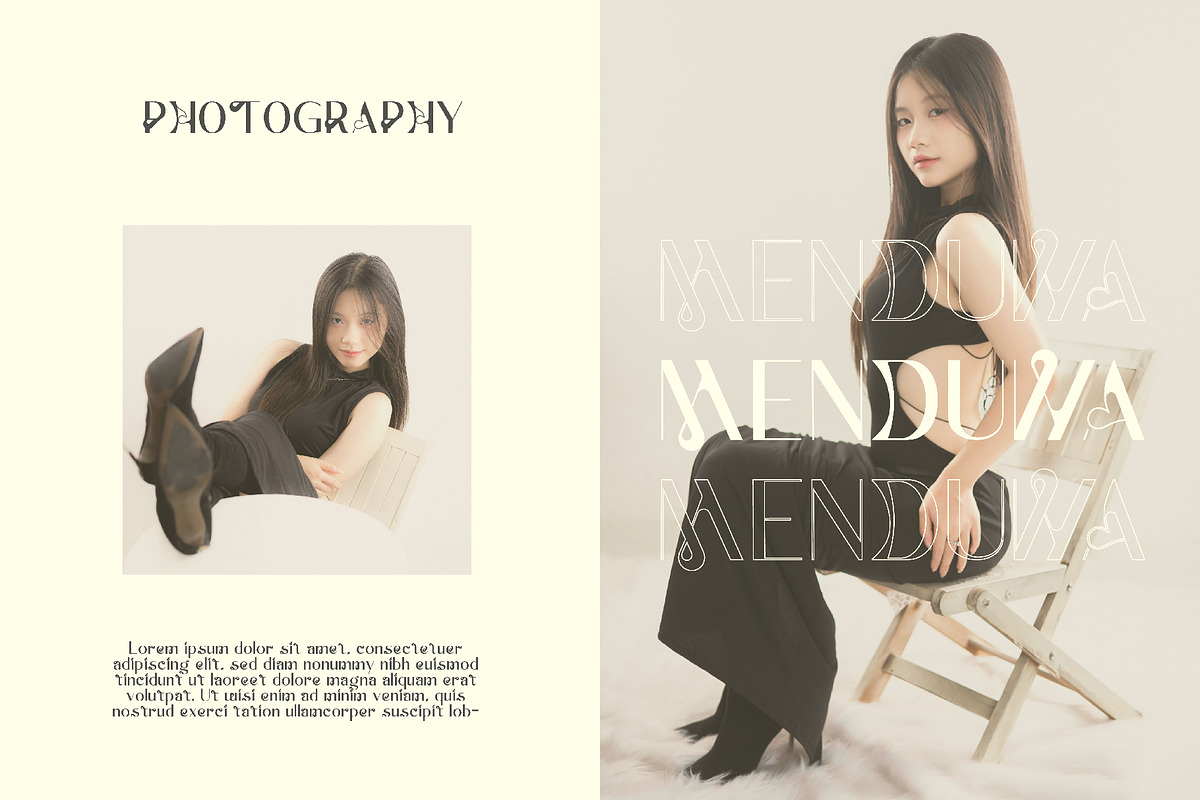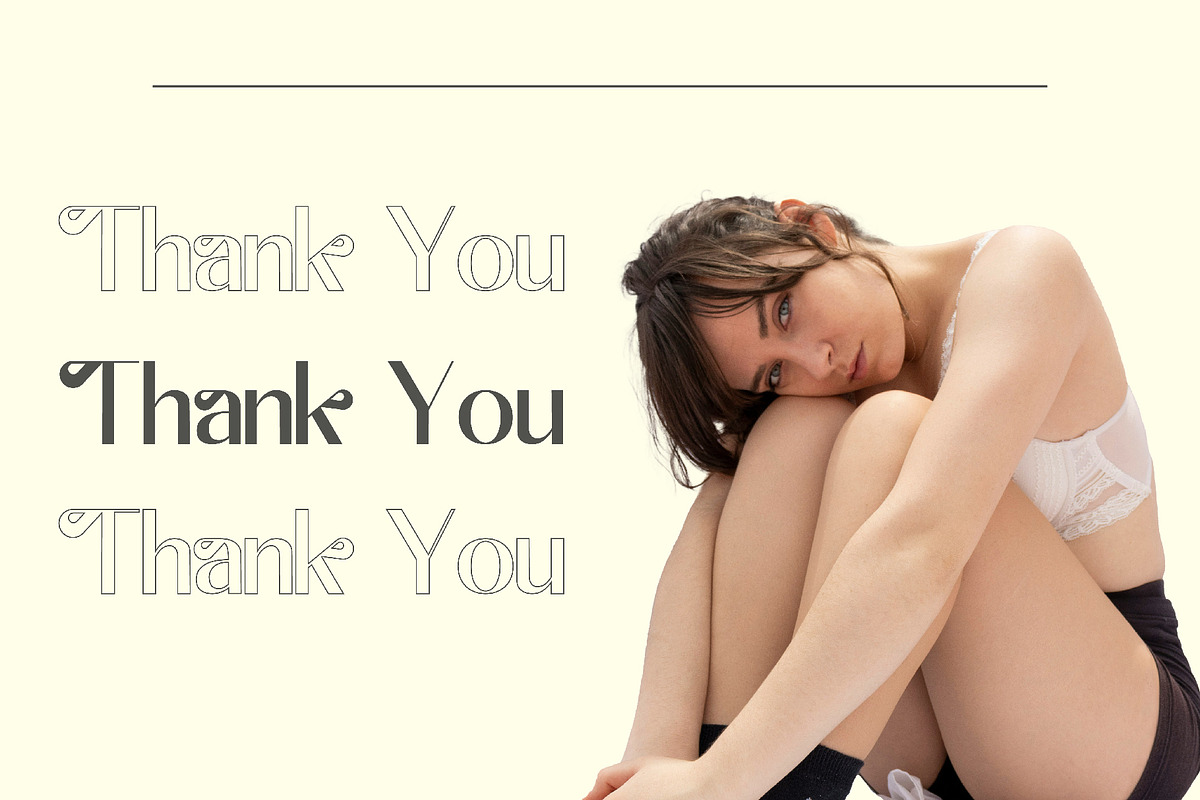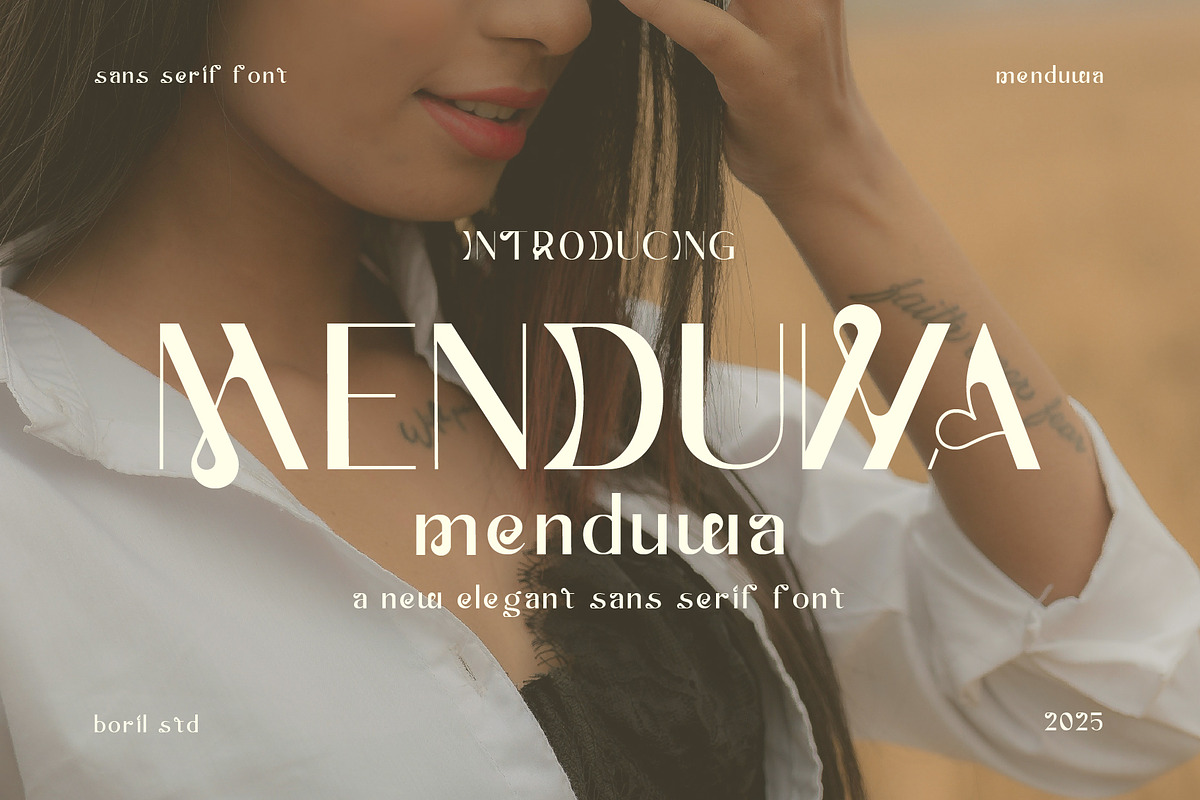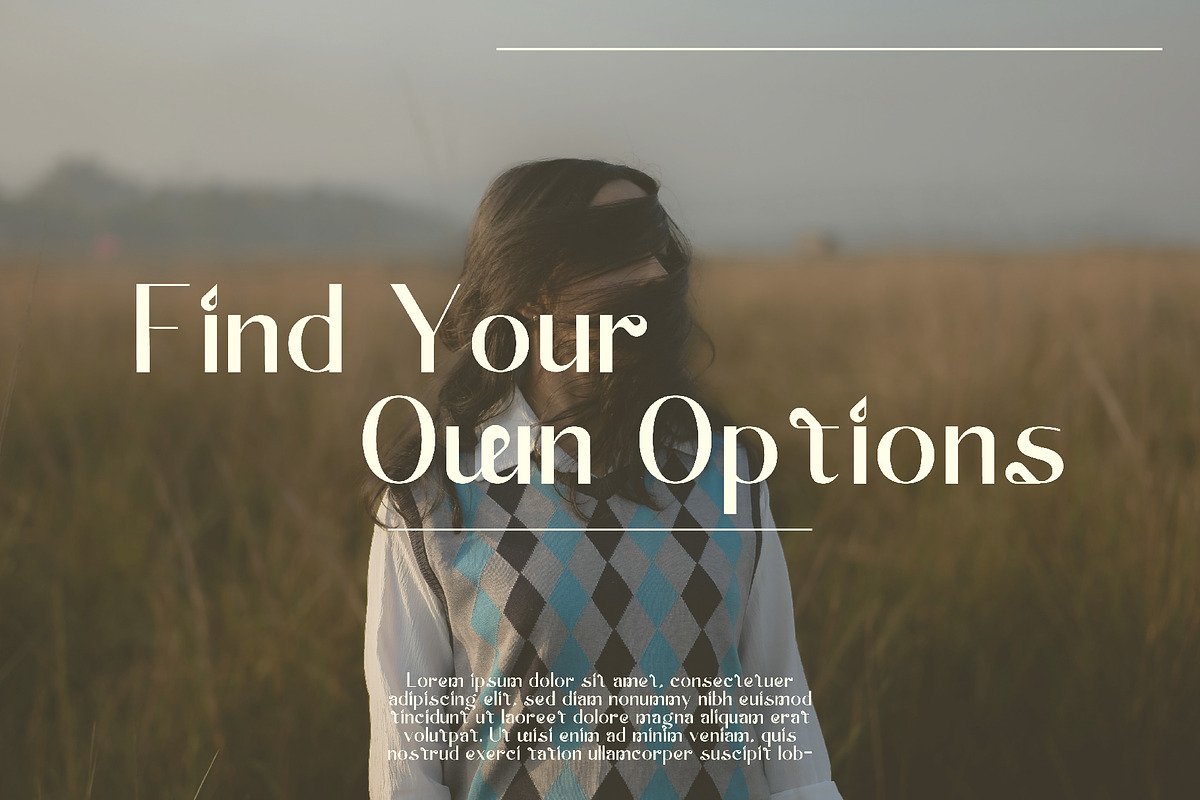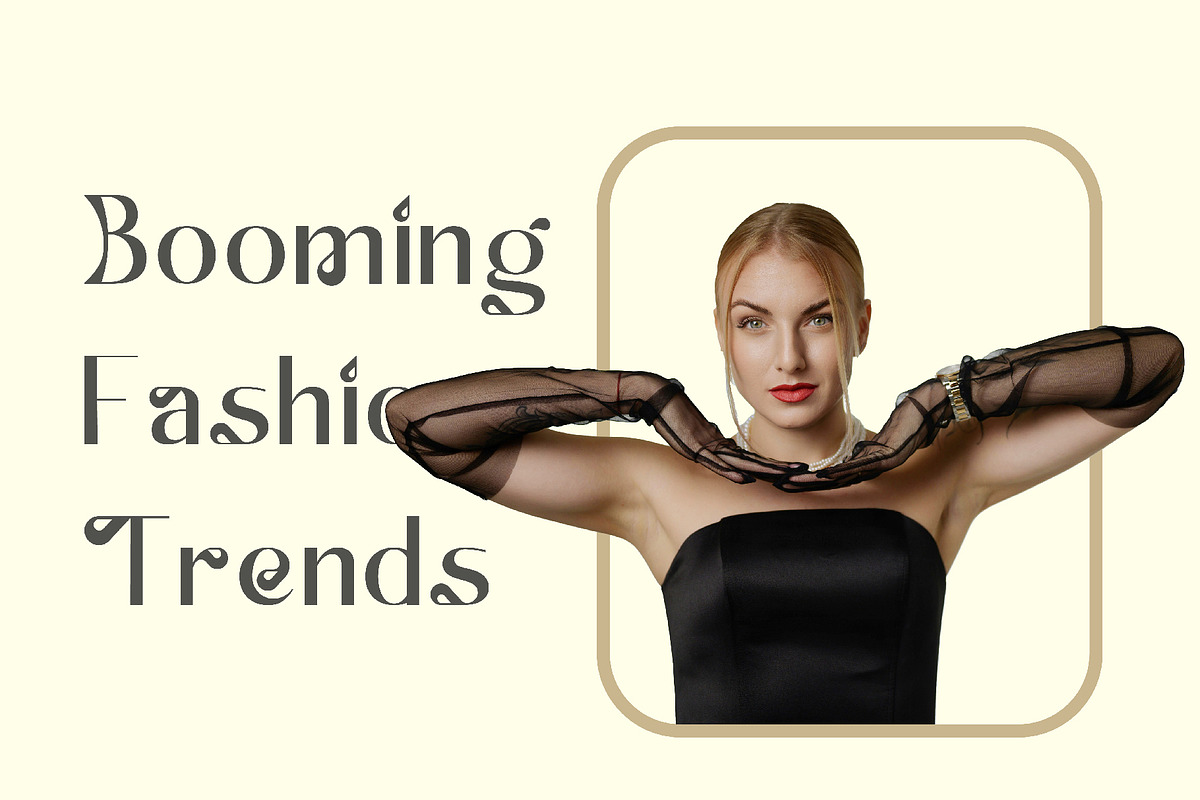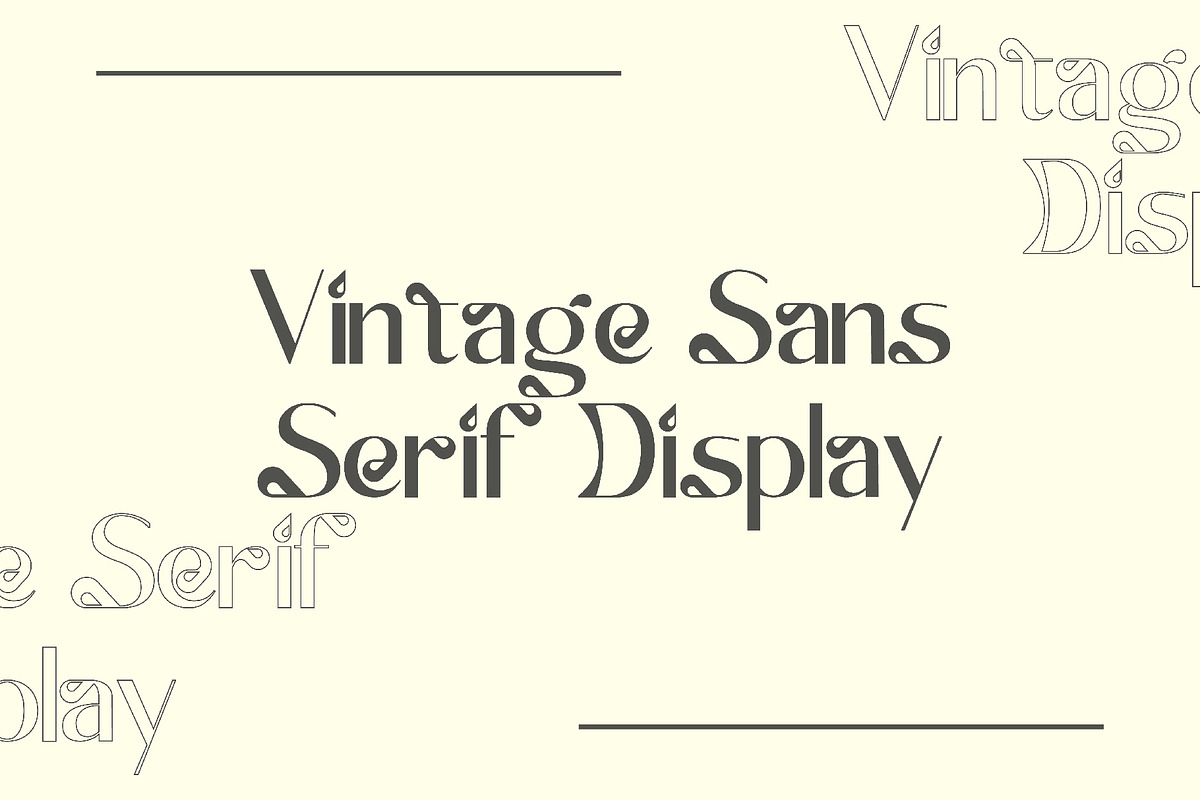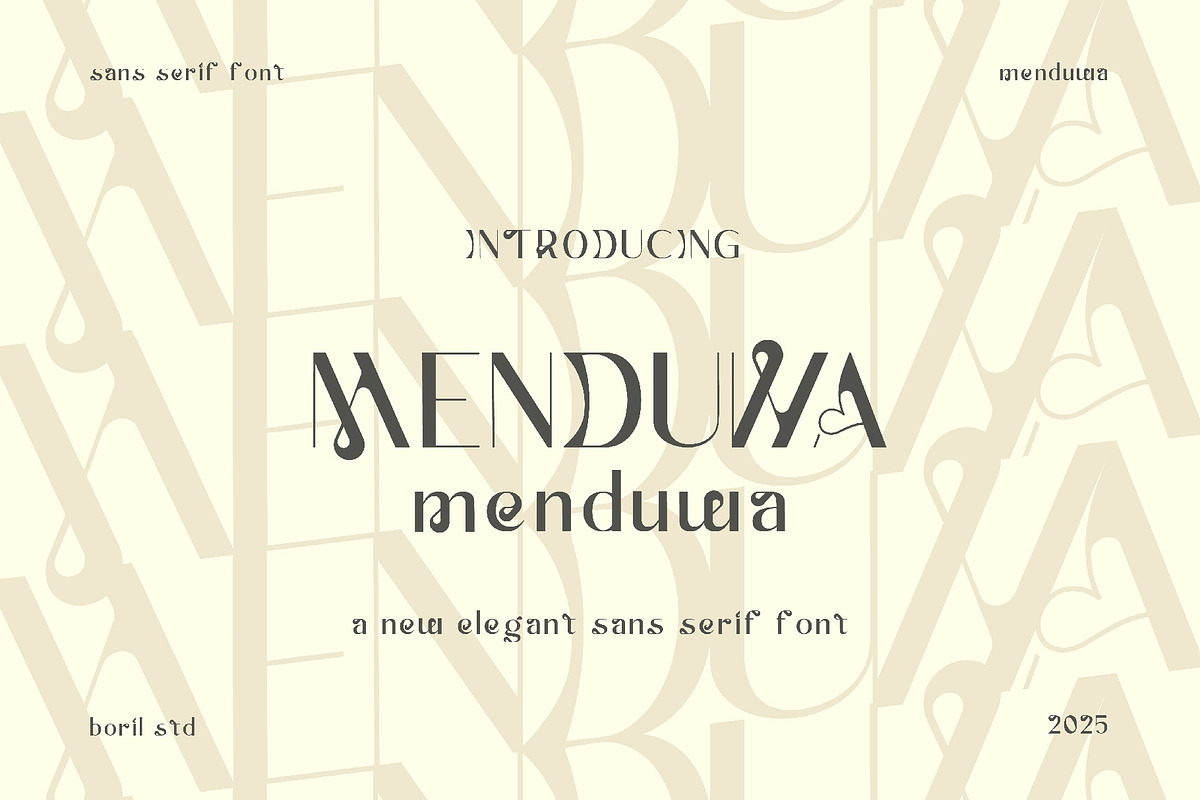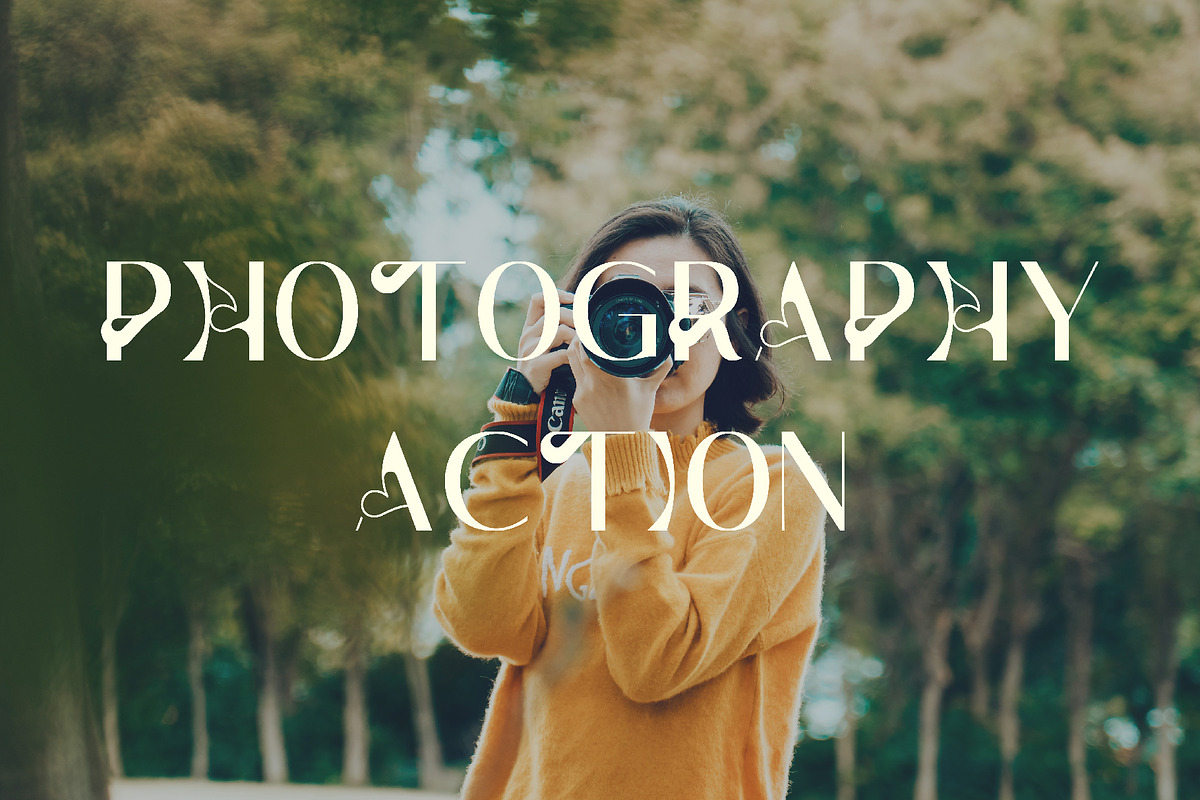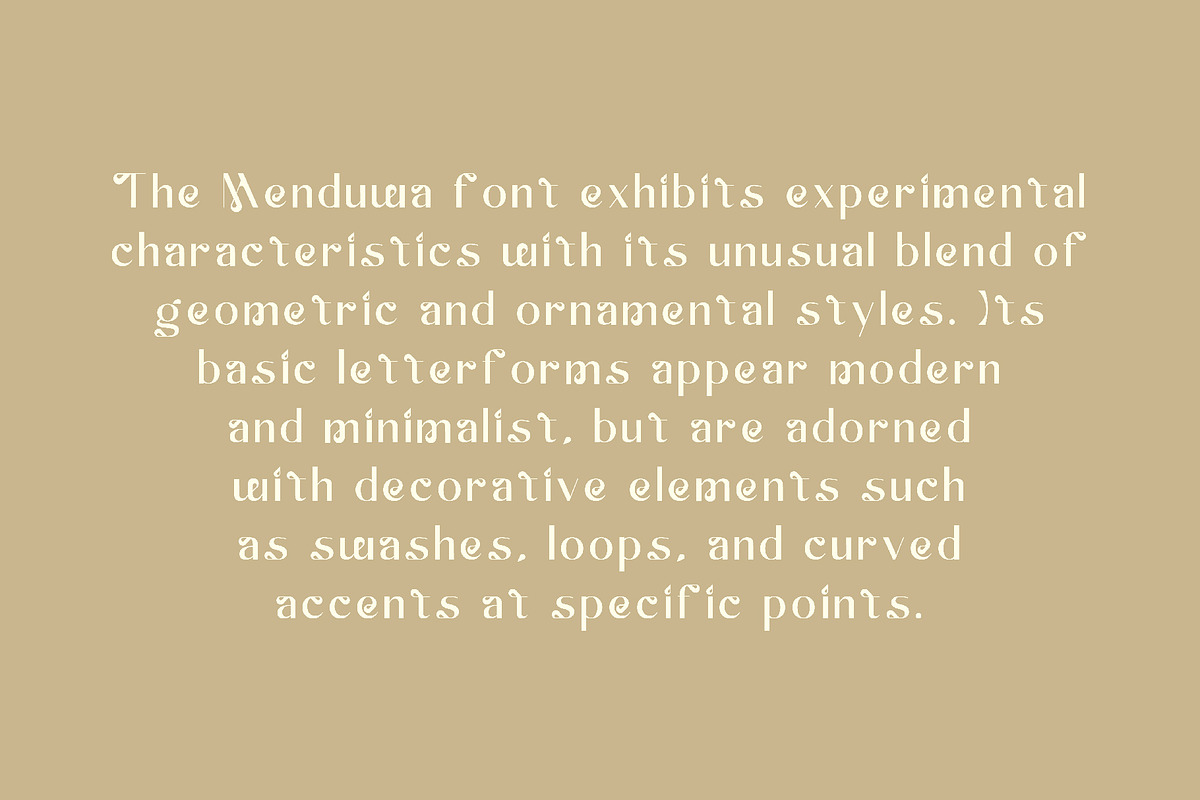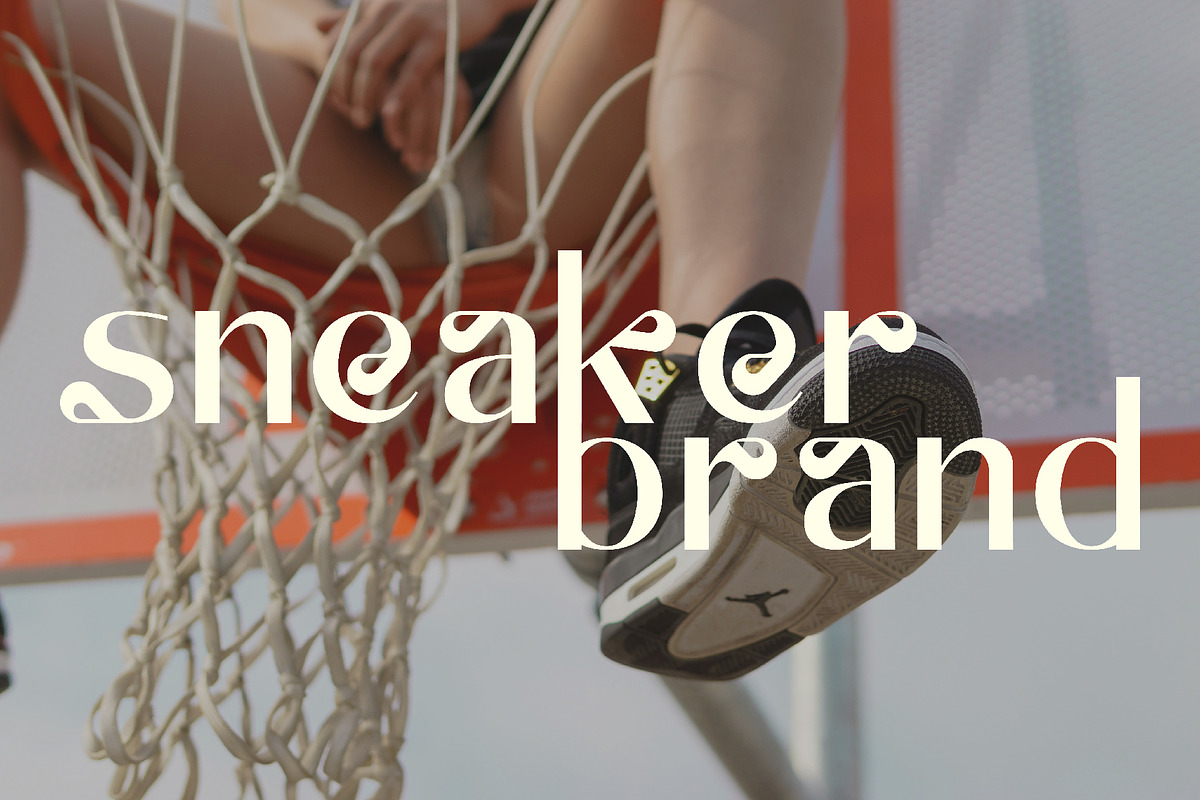
Menduwa - Sans Serif Vintage
The Menduwa font exhibits experimental characteristics with its unusual blend of geometric and ornamental styles. Its basic letterforms appear modern and minimalist, but are adorned with decorative elements such as swashes, loops, and curved accents at specific points.